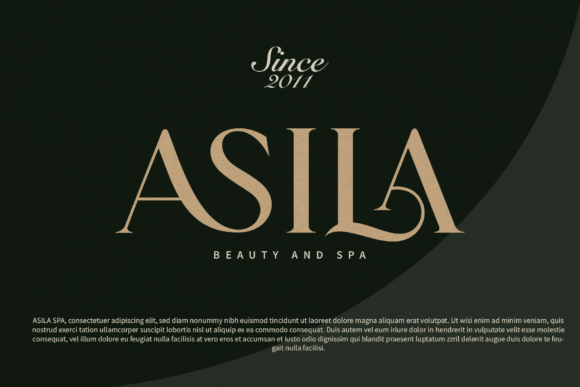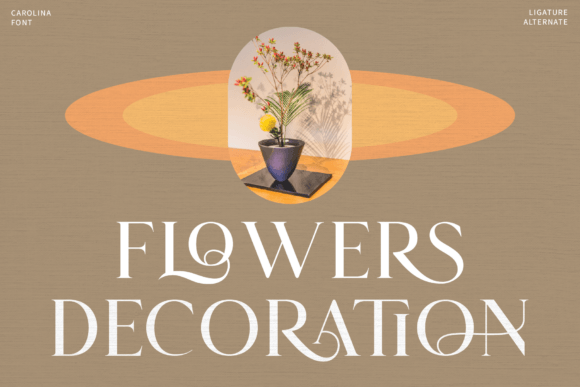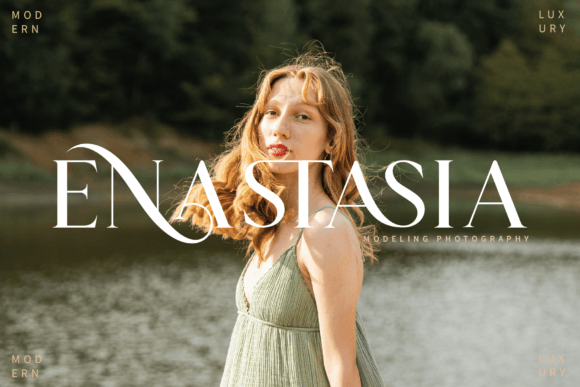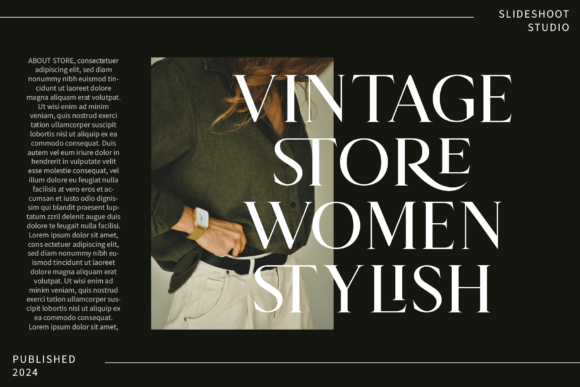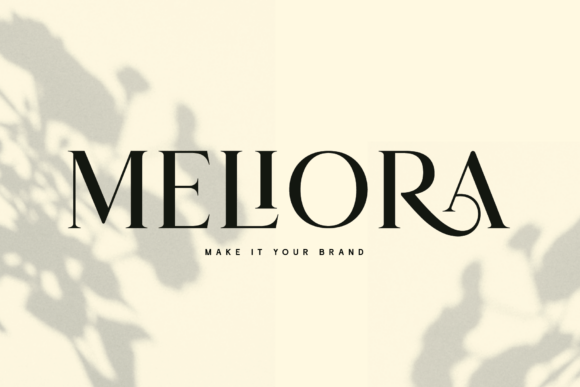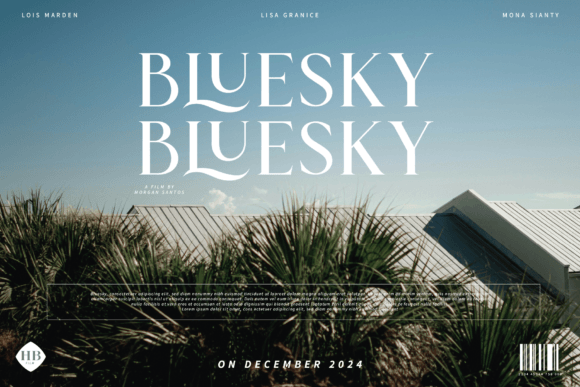
Discover the Elegance of Carolina Font: A Timeless Serif Choice for Designers
In the realm of typography, few fonts manage to strike a balance between elegance, sophistication, and versatility. Carolina Serif, however, stands out as a shining example of a font that excels in all these areas. This beautifully crafted serif font has been making waves in the design community for its smooth, elegant, and stylish appearance, making it an ideal choice for a wide range of design projects.
The Characteristics of Carolina Serif
Carolina Serif is characterized by its balanced and subtle design. Each character is meticulously crafted to exude a sense of sophistication and refinement. The font features stylish alternations and ligatures, which not only add to its aesthetic appeal but also enhance its readability. Whether it’s used for body text or headlines, Carolina Serif brings a level of elegance that is hard to match.
One of the key advantages of Carolina Serif is its versatility. This font is perfectly suited for a variety of design projects, including:
- Invitation Card Designs: The elegant and sophisticated nature of Carolina Serif makes it an excellent choice for wedding invitations, birthday parties, and other formal events.
- Company Logos: For businesses looking to establish a professional and refined brand image, Carolina Serif can be a great choice.
- Movie Titles and Names: The font’s stylish and eye-catching appearance makes it ideal for movie posters, titles, and subtitles.
- Business Cards: Stand out with a business card that features the sleek and professional look of Carolina Serif.
- Book Titles: Authors and publishers can elevate their book covers with the sophisticated look of Carolina Serif.
- Brand Names: Create a lasting impression with a brand name that utilizes the elegant and stylish characteristics of Carolina Serif.
Why Choose Carolina Serif?
There are several reasons why designers and crafters should consider Carolina Serif for their projects:
- Sophistication: Carolina Serif exudes a level of sophistication that is perfect for projects that require a touch of elegance.
- Versatility: Its versatility means it can be used across a wide range of projects, from digital content to print materials.
- Readability: The font’s design ensures that it remains highly readable, even at smaller sizes.
- Aesthetic Appeal: The stylish alternations and ligatures add an extra layer of aesthetic appeal, making any project stand out.
Tips for Using Carolina Serif
To get the most out of Carolina Serif, consider the following tips:
- Pair with Sans-Serif Fonts: For a modern contrast, pair Carolina Serif with a clean sans-serif font for body text or headings.
- Experiment with Sizes: Don’t be afraid to experiment with different sizes to find the perfect balance for your design.
- Utilize Ligatures: Make use of the font’s ligatures to add a unique touch to your typography.
- Consider Line Spacing: Ensure that your line spacing is adjusted correctly to maintain readability and flow.
Carolina Serif is more than just a font; it’s a design statement. Its elegant and sophisticated appearance makes it an excellent choice for designers and crafters looking to add a touch of refinement to their projects. Whether you’re working on a corporate brand identity, a wedding invitation, or a book cover, Carolina Serif offers the versatility and aesthetic appeal needed to make your project stand out. With its balanced design, stylish alternations, and ligatures, Carolina Serif is poised to become a favorite among designers seeking a timeless and elegant serif font.